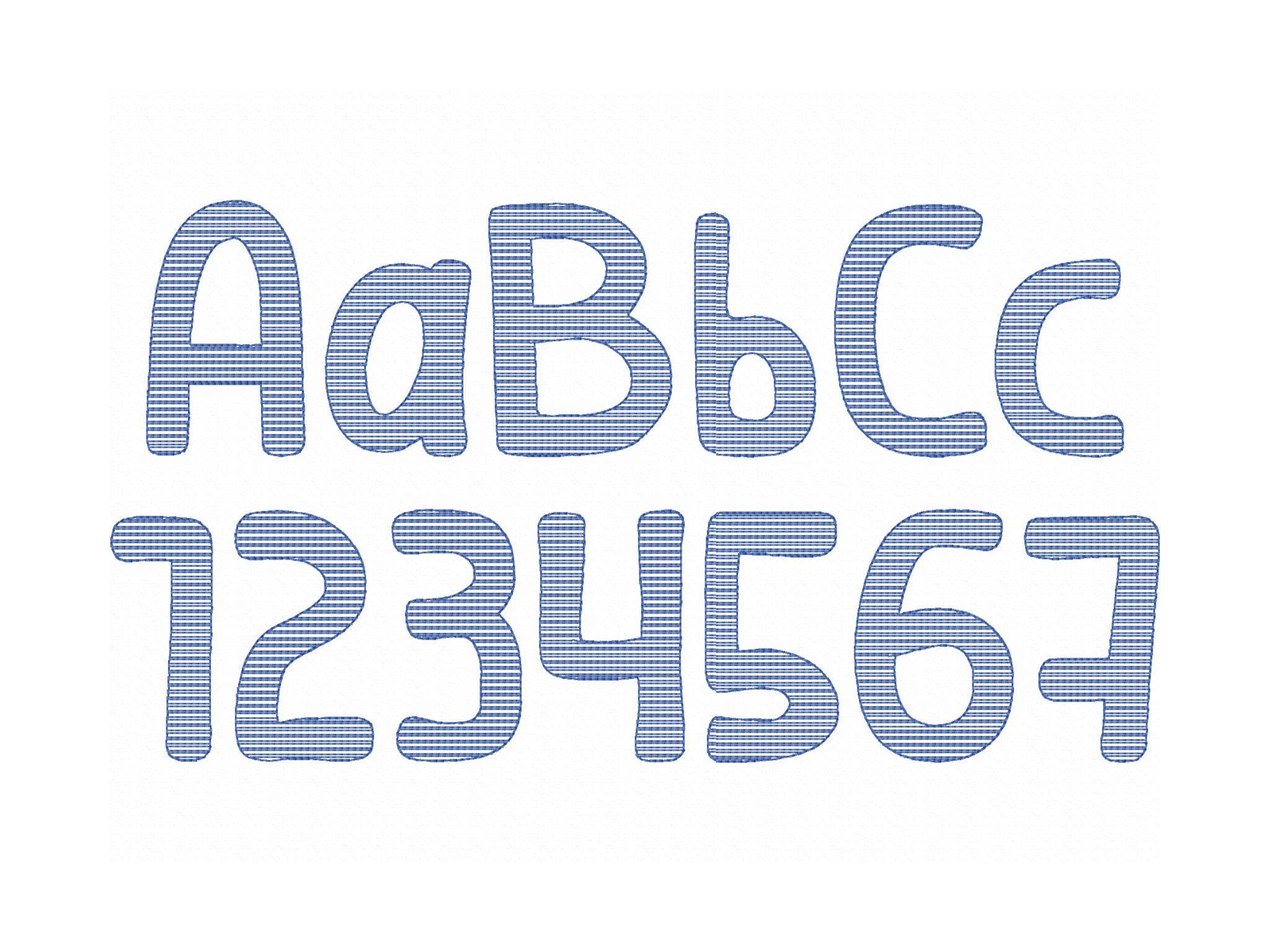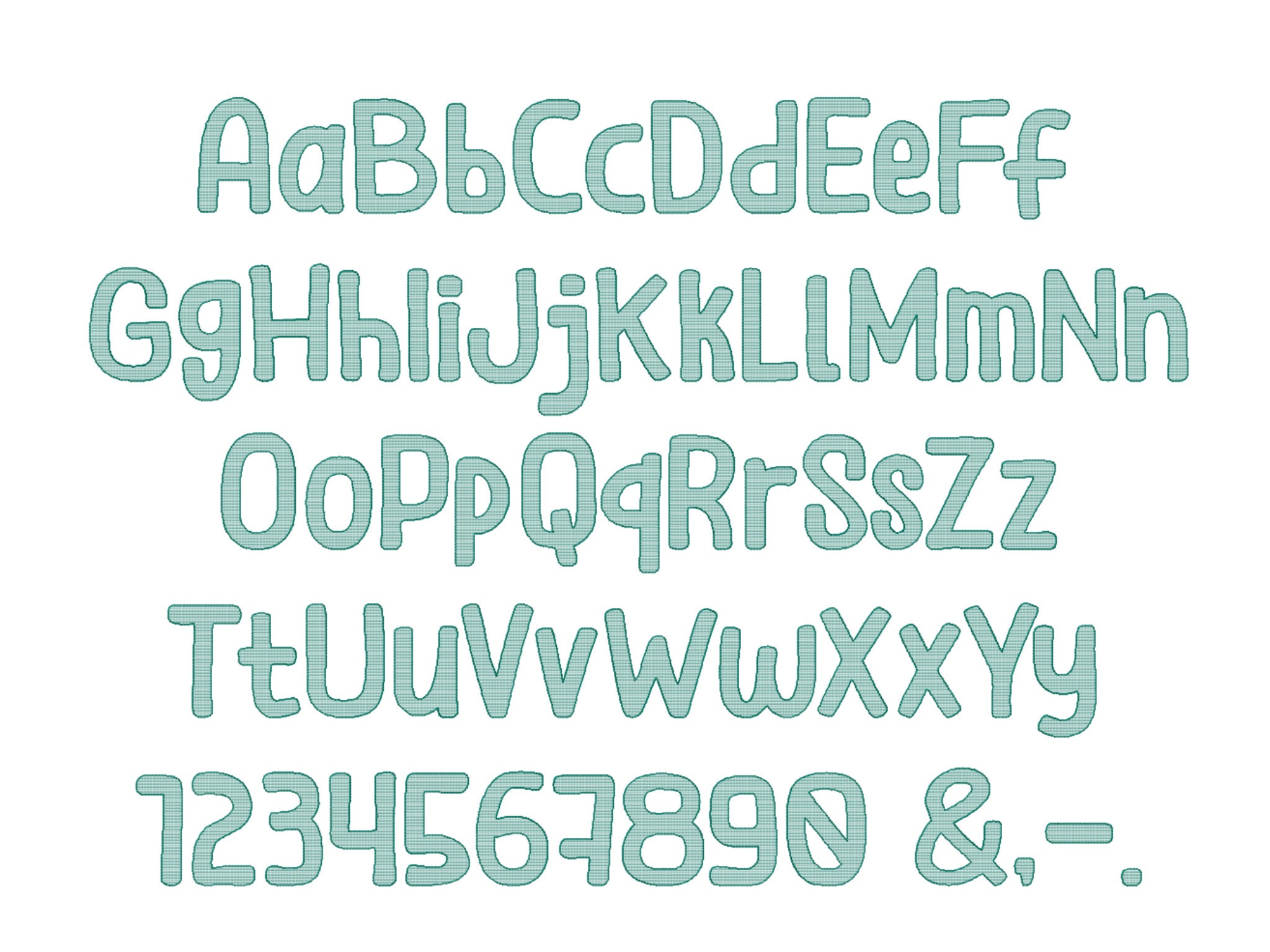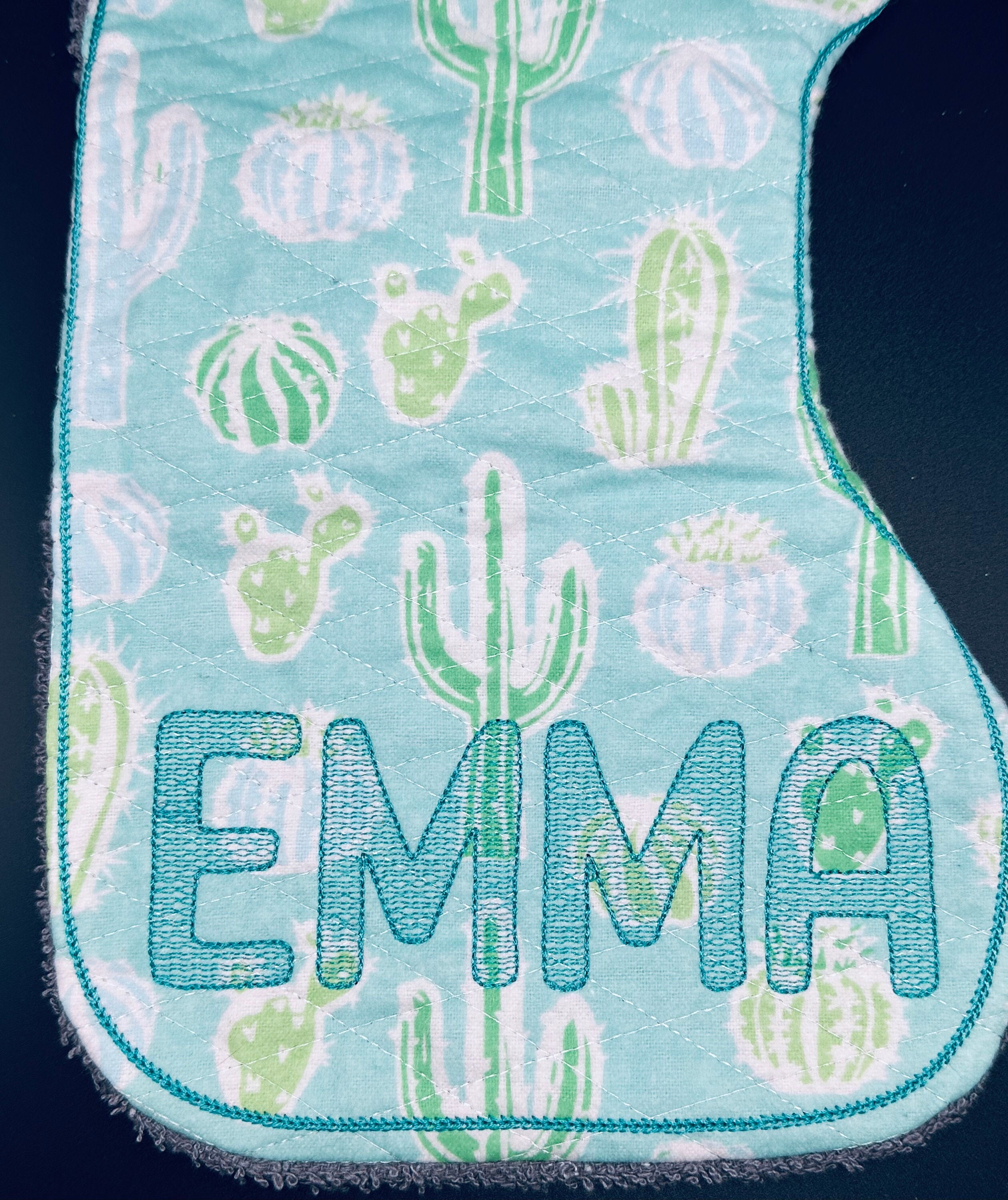
Light Stitch Font kids baby alphabet monogram Light fill stitch letters numbers machine embroidery designs multiple sizes 0.8 to 5 inch, BX included
Uppercase and lowercase letters Aa-Zz, numbers 0-9, and special marks & . , -
The font is transparent, the background fabric looks through. Stunning effect!